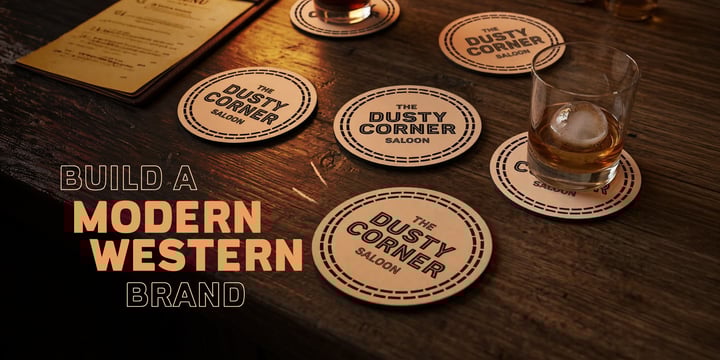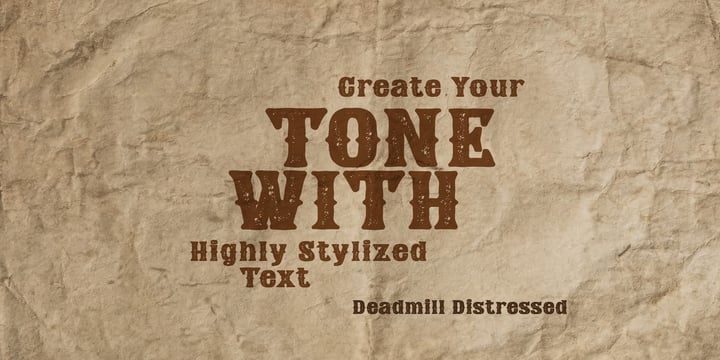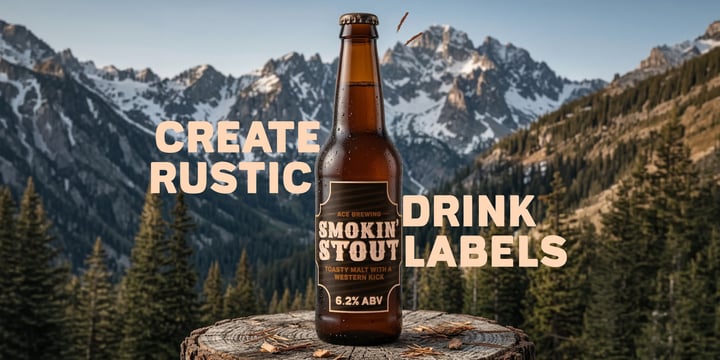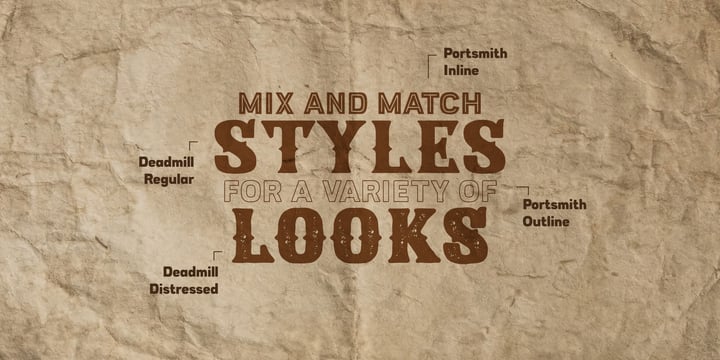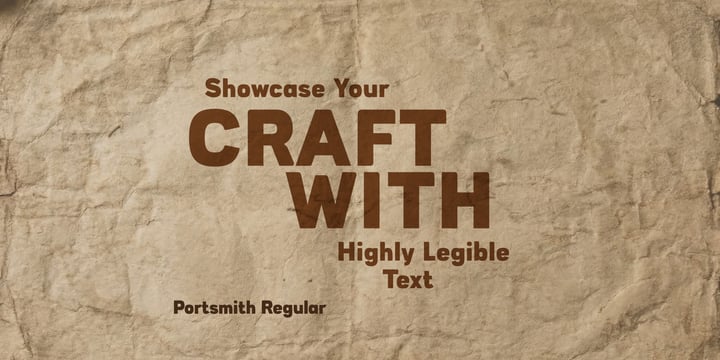
Rustic Western Heritage Font Duo
Capture the authentic spirit of the Wild West and the artisan touch of modern brewing with The Heritage & Craft Beer Font Duo by Parker Creative. This highly versatile bundle pairs two distinct typefaces—Deadmill and Portsmith—to give you a combined toolkit of 6 unique font styles that seamlessly blend for one cohesive, rustic look.
Whether you are designing a vintage-inspired beverage label, establishing a modern western brand identity, or crafting menus for a local saloon, this font duo provides the perfect balance of rugged character and clean legibility.
What’s Included in the Duo:
Deadmill (Wild West Serif): A bold, highly stylized heritage serif that commands attention. Perfect for setting the tone of your design. Includes Regular and Distressed styles for an authentic, weathered feel.
Portsmith (Versatile Sans): A highly legible, industrial-style font that perfectly complements Deadmill's rustic flair. Use it to cleanly showcase your craft. Includes Regular, Inline, and Outline styles.
Mix, Match, and Create: With 6 distinct font styles to choose from, you have complete creative control to mix and match typography for a variety of dynamic looks. Build eye-catching hierarchies by pairing Deadmill's textured, distressed display text with Portsmith's clean, inline subheadings.
Perfect For:
• Craft beer, whiskey, and artisan drink labels
• Modern western branding and logo design
• Vintage packaging and merchandise
• Restaurant, bar, and saloon menus (like coasters and signage)
• Rustic apparel and poster graphics
Bring a touch of timeless western heritage to your next graphic design project with The Heritage & Craft Beer Font Duo!
Capture the authentic spirit of the Wild West and the artisan touch of modern brewing with The Heritage & Craft Beer Font Duo by Parker Creative. This highly versatile bundle pairs two distinct typefaces—Deadmill and Portsmith—to give you a combined toolkit of 6 unique font styles that seamlessly blend for one cohesive, rustic look.
Whether you are designing a vintage-inspired beverage label, establishing a modern western brand identity, or crafting menus for a local saloon, this font duo provides the perfect balance of rugged character and clean legibility.
What’s Included in the Duo:
Deadmill (Wild West Serif): A bold, highly stylized heritage serif that commands attention. Perfect for setting the tone of your design. Includes Regular and Distressed styles for an authentic, weathered feel.
Portsmith (Versatile Sans): A highly legible, industrial-style font that perfectly complements Deadmill's rustic flair. Use it to cleanly showcase your craft. Includes Regular, Inline, and Outline styles.
Mix, Match, and Create: With 6 distinct font styles to choose from, you have complete creative control to mix and match typography for a variety of dynamic looks. Build eye-catching hierarchies by pairing Deadmill's textured, distressed display text with Portsmith's clean, inline subheadings.
Perfect For:
• Craft beer, whiskey, and artisan drink labels
• Modern western branding and logo design
• Vintage packaging and merchandise
• Restaurant, bar, and saloon menus (like coasters and signage)
• Rustic apparel and poster graphics
Bring a touch of timeless western heritage to your next graphic design project with The Heritage & Craft Beer Font Duo!